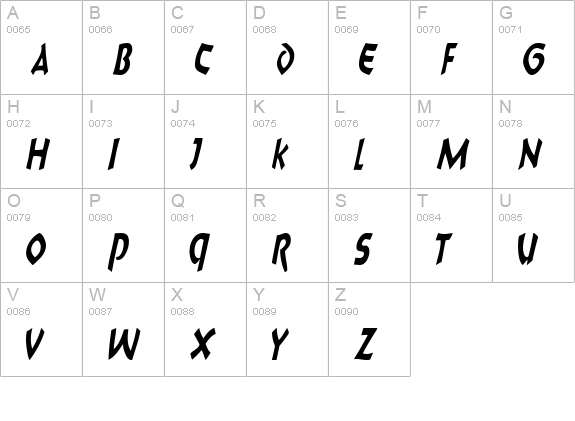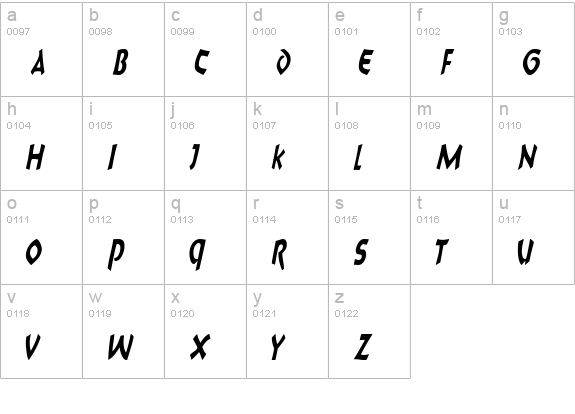
8BallScriptSCapsSSK Italic Font Details
8BallScriptSCapsSSK Italic is a distinctive, italic variant in the 8BallScriptSCapsSSK typeface family \xE2\x80\x94 well suited to design and typography projects.
8BallScriptSCapsSSK Italic font is a stylish and elegant typeface that exudes sophistication and flair. With its unique curves and slanted appearance, this font is perfect for creating eye-catching designs that stand out. Whether you're working on a project for print or digital media, this font is sure to make a statement. Best of all, 8BallScriptSCapsSSK Italic font is available for free download at FontsMarket.com. This means you can add this stunning font to your collection without having to spend a penny. Don't miss out on the opportunity to elevate your designs with this beautiful typeface - download it today and let your creativity shine!